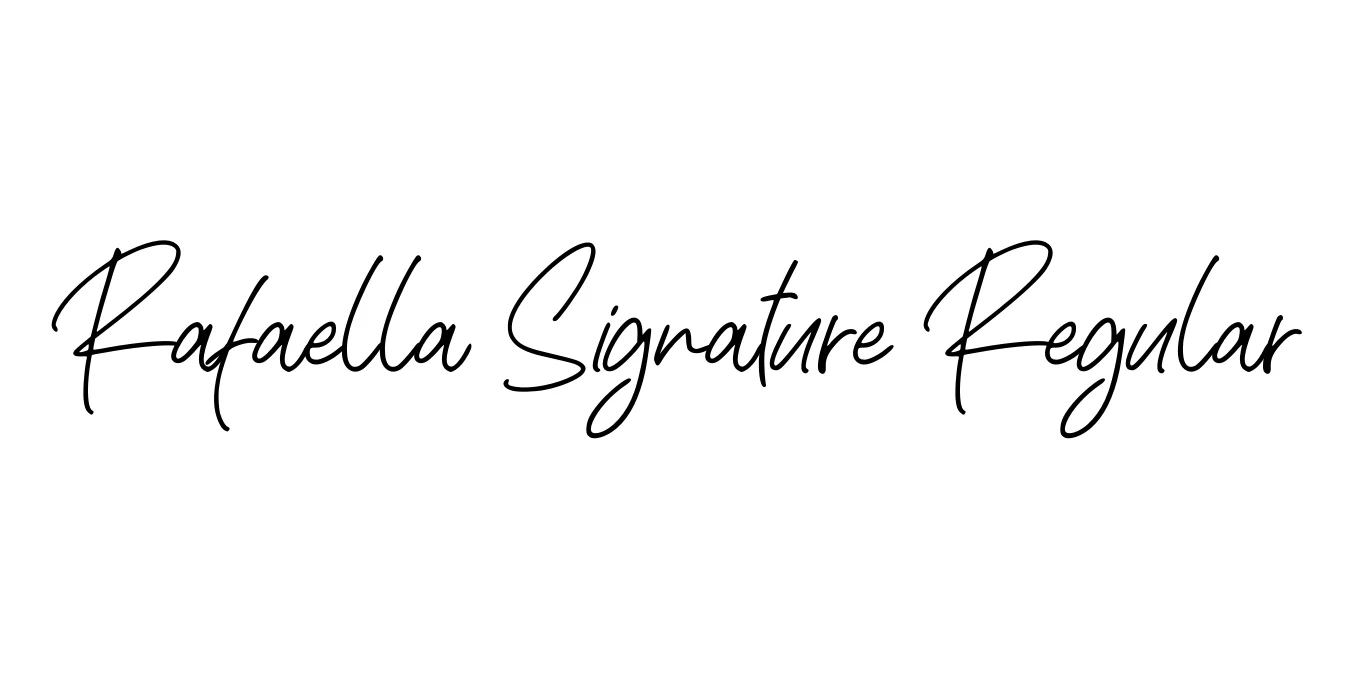
Rafaella Signature Regular
Designed by Typeia
Rafaella Signature Regular is a sophisticated and fluid handwritten script font designed to capture the essence of natural penmanship. Its graceful strokes and seamless ligatures provide a high-end aesthetic that bridges the gap between traditional calligraphy and modern digital design, making it a favorite for designers seeking a personal touch.
This font is characterized by its balanced weight and rhythmic flow, which excels in the fashion, beauty, and luxury sectors. The hand-drawn qualities of Rafaella Signature Regular ensure that every application, from editorial layouts to bespoke stationery, conveys a sense of authenticity, exclusivity, and professional elegance.
Rafaella Signature Regular Best Uses
Ideal for luxury logos, business cards, and high-end corporate identity.
Perfect for elegant invitations, RSVP cards, and seating charts.
Great for creating aesthetic quotes, Instagram stories, and lifestyle graphics.
A top choice for professional watermarks and signature-style credits.